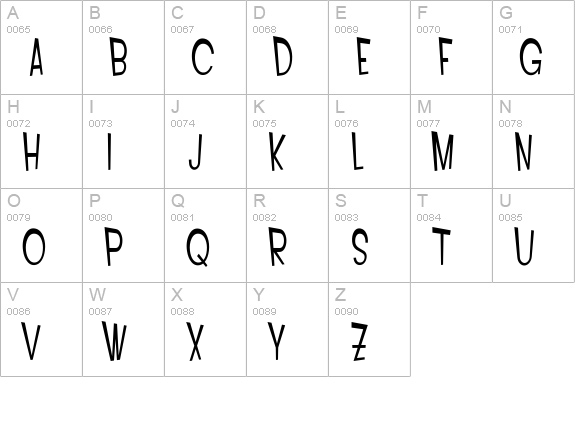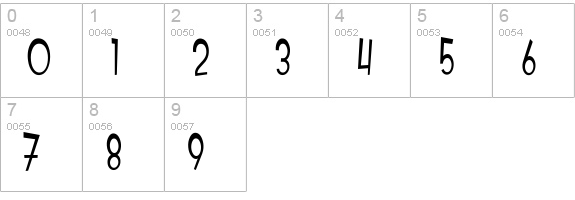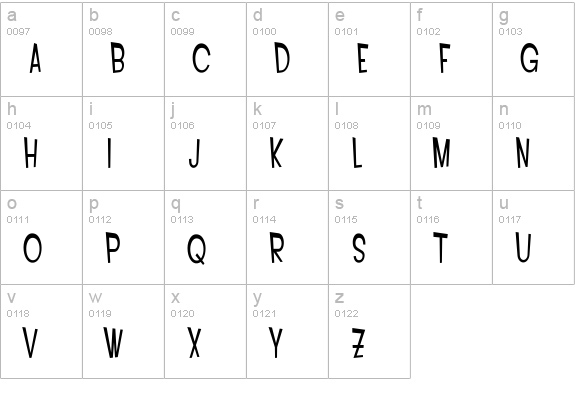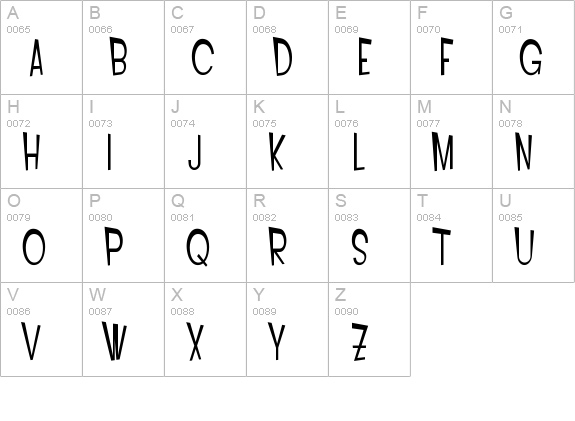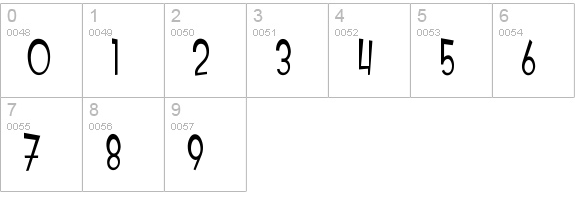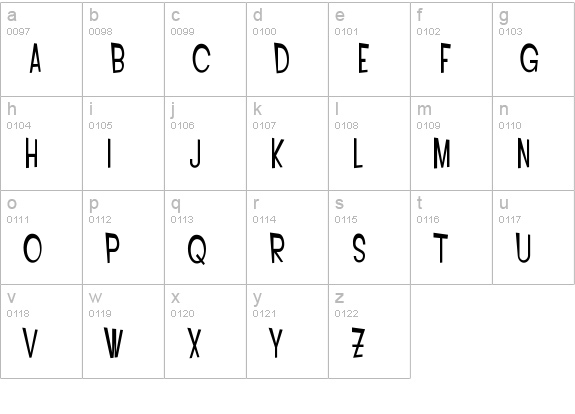
SF Intoxicated Blues Font Details
SF Intoxicated Blues is a captivating and dynamic font that embodies the essence of intoxicating blues music. Its unique and mesmerizing design captures the soulful and raw energy of the blues, making it the perfect choice for any project that seeks to convey a sense of passion, emotion, and authenticity. With its beautifully crafted letterforms and intricate details, SF Intoxicated Blues stands out as a truly remarkable typeface. Each letter is carefully crafted to evoke a sense of movement and rhythm, echoing the melodic tones of a blues guitar or the soulful crooning of a blues vocalist. This font is freely available to download at FontsMarket.com, allowing anyone to easily access its captivating charm. Whether you're a designer working on a branding project, a musician creating album artwork, or a writer looking to add a touch of bluesy flair to your work, SF Intoxicated Blues offers endless possibilities. The versatility of SF Intoxicated Blues is further enhanced by its wide range of weights and styles, allowing you to experiment and find the perfect fit for your creative vision. From bold and impactful headlines to elegant and flowing text, this font adapts effortlessly to any design context. SF Intoxicated Blues not only captures the spirit of the blues, but it also embodies the principles of freedom and accessibility. With its freely available download at FontsMarket.com, this font empowers designers, artists, and creatives to express themselves without limitations. So, if you're looking to infuse your designs with the soulful essence of the blues, look no further than SF Intoxicated Blues. Download this captivating font today and let its intoxicating charm transport you to a world of rhythm, emotion, and creativity.